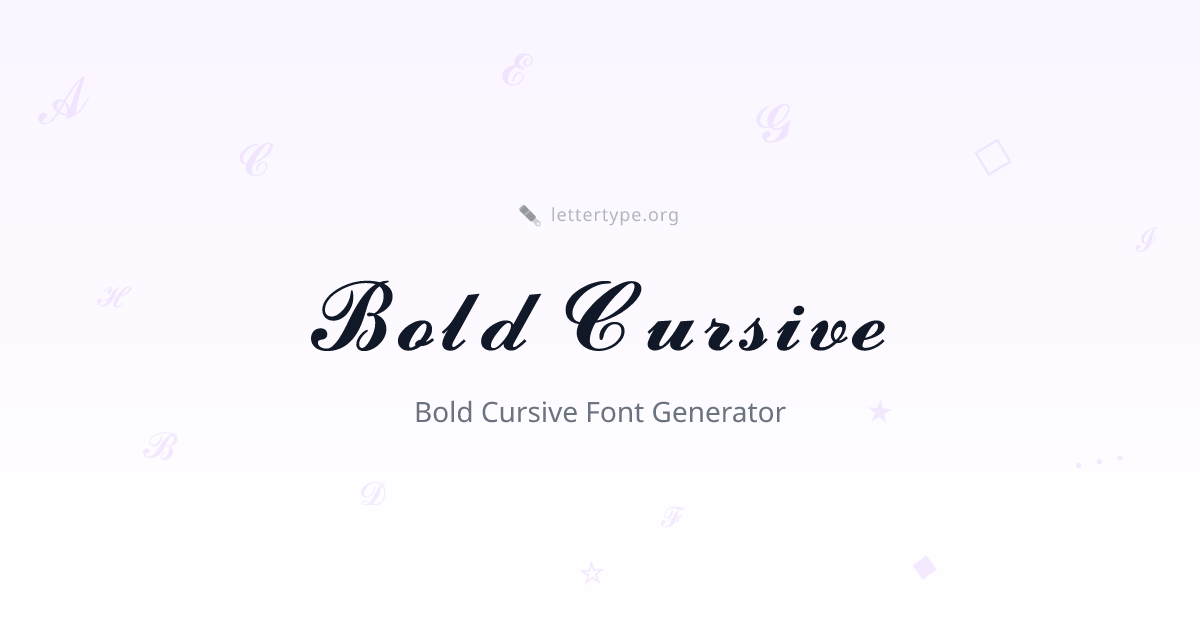
Bold Cursive Font Generator
Bold Cursive Font Generator — 𝓑𝓸𝓵𝓭 𝓒𝓾𝓻𝓼𝓲𝓿𝓮 Text for Social Media
Transform any text into bold cursive font with flowing, elegant letterforms that stand out on Instagram, Discord, Twitter, and beyond. Our bold cursive generator uses Unicode Mathematical Script Bold characters — meaning the styled text works anywhere, no special app or font installation needed.
What Is Bold Cursive Font?
Bold cursive font combines the flowing, connected strokes of cursive script with the visual weight of bold typography. The result is an elegant yet attention-grabbing style used in everything from luxury brand logos to personal Instagram bios.
The Unicode characters used by this generator come from the Mathematical Script Bold block (U+1D400–U+1D7FF), originally designed for mathematical notation but widely adopted for decorative text on social platforms.
Bold Cursive Alphabet
Uppercase: 𝓐 𝓑 𝓒 𝓓 𝓔 𝓕 𝓖 𝓗 𝓘 𝓙 𝓚 𝓛 𝓜 𝓝 𝓞 𝓟 𝓠 𝓡 𝓢 𝓣 𝓤 𝓥 𝓦 𝓧 𝓨 𝓩
Lowercase: 𝓪 𝓫 𝓬 𝓭 𝓮 𝓯 𝓰 𝓱 𝓲 𝓳 𝓴 𝓵 𝓶 𝓷 𝓸 𝓹 𝓺 𝓻 𝓼 𝓽 𝓾 𝓿 𝔀 𝔁 𝔂 𝔃
Where to Use Bold Cursive Text
Instagram bios — bold cursive instantly elevates your profile aesthetic and makes your name or tagline feel premium and unique.
Discord usernames and server names — stand out in server member lists with a distinctive script style that most users don't have.
Twitter and X bios — add personality to your profile without relying on emoji spam.
WhatsApp and Telegram — send stylized messages in group chats or use it in your display name.
TikTok captions — overlay bold cursive text on videos for a luxury or aesthetic feel.
Bold Cursive vs Regular Cursive
StyleExampleUse Case
Regular cursive𝒷𝑜𝓁𝒹Elegant, light, editorial
Bold cursive𝓫𝓸𝓵𝓭Strong, premium, expressive
Bold cursive has more visual weight, making it better for headlines, usernames, and anywhere you want the text to command attention. Regular cursive feels more subtle and refined.
Bold Cursive Font — FAQ
Can I use bold cursive for a business name?
Yes. Bold cursive works well for personal brands, beauty, fashion, wellness, and lifestyle businesses. It's widely used in luxury and feminine brand aesthetics. Copy from Lettertype and paste directly into your Instagram display name, bio, or caption.
Why does bold cursive look different on iPhone vs Android?
The bold cursive characters render through your device's system font. iOS uses San Francisco, Android uses Roboto or Noto Sans — both render the Mathematical Bold Script block, but with slight stylistic differences in letterform shape and stroke angle. The underlying character is identical.